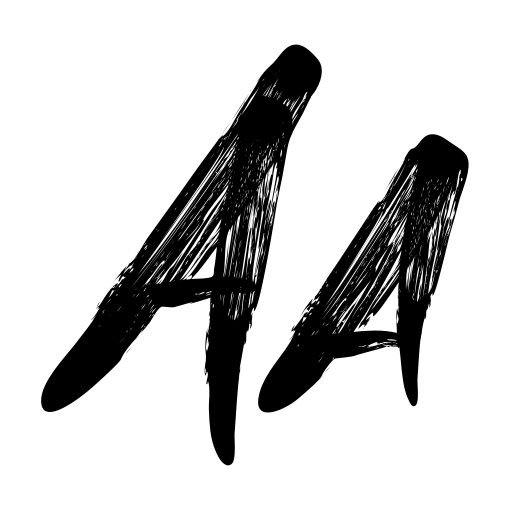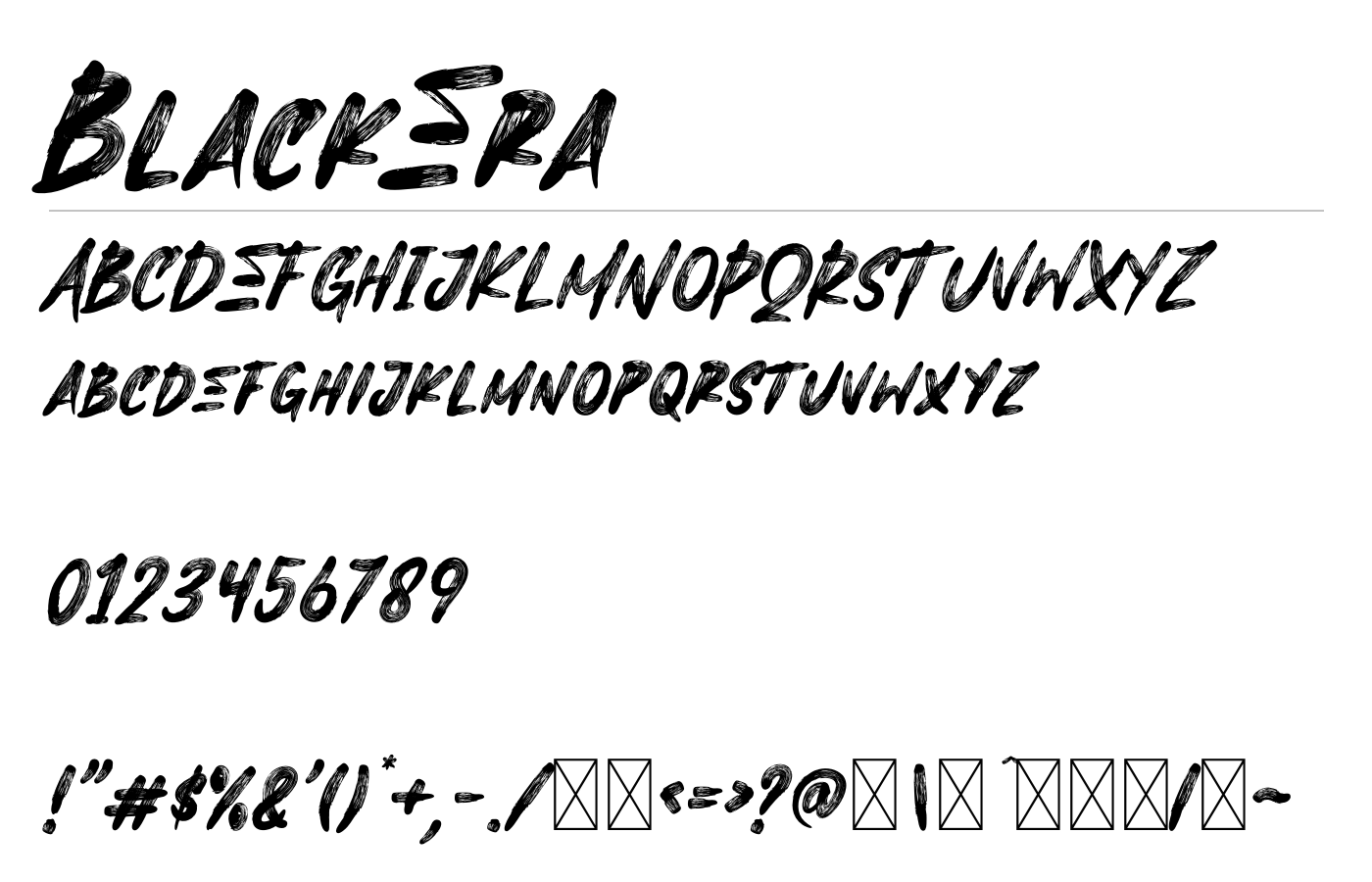
BlackEra is a bold and energetic brush script font that captures a raw, hand-painted aesthetic with strong, textured strokes. Its dynamic and slightly irregular letterforms make it ideal for creating eye-catching, playful designs with a lively and creative vibe, perfect for branding, posters, and artistic projects where personality and impact are key.
BlackEra Font
About BlackEra Font